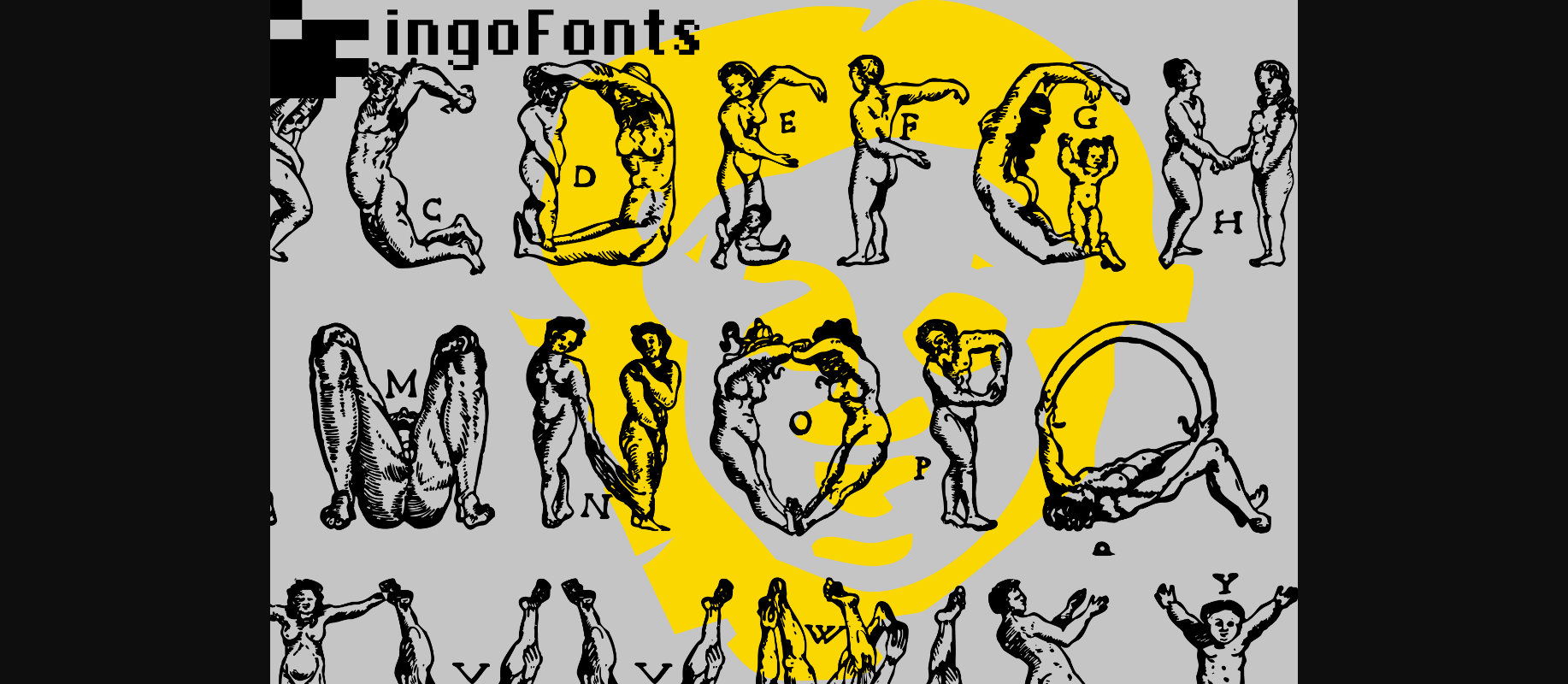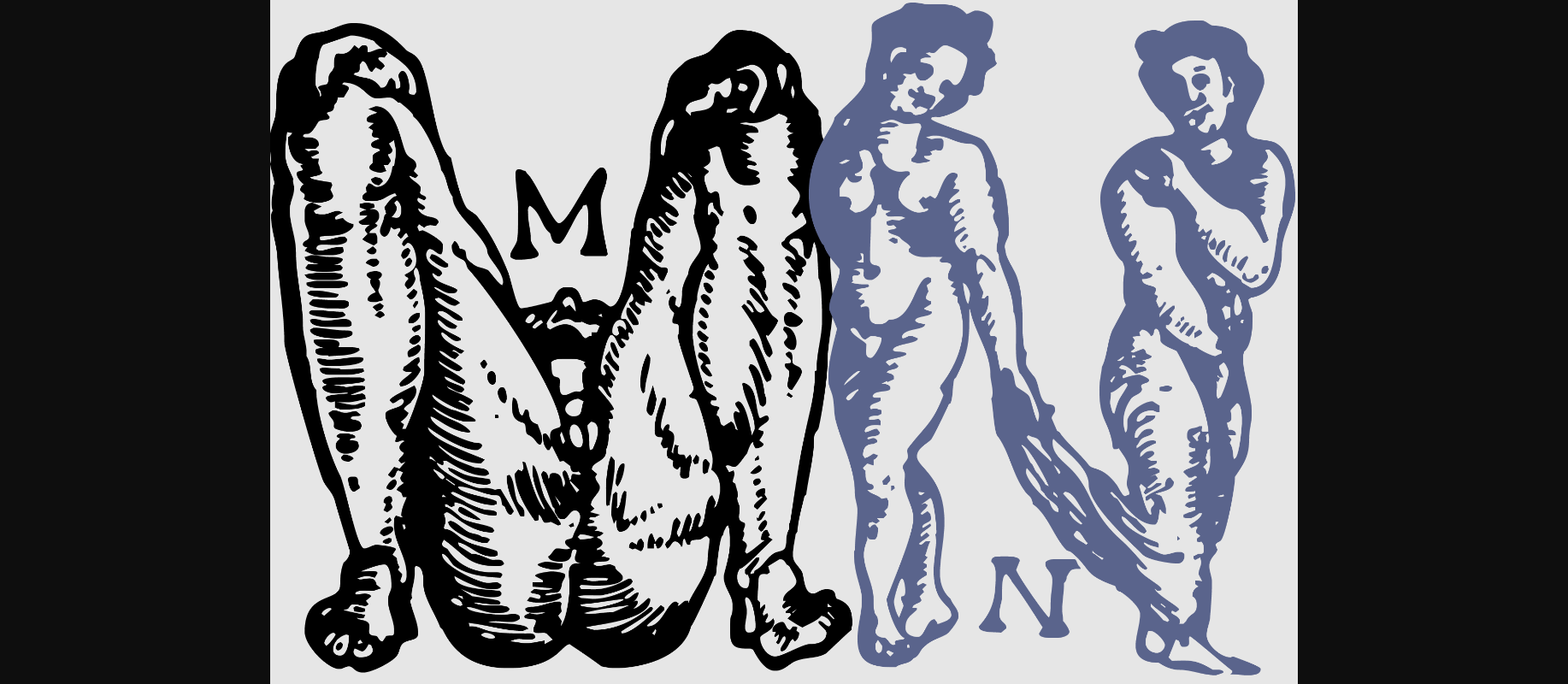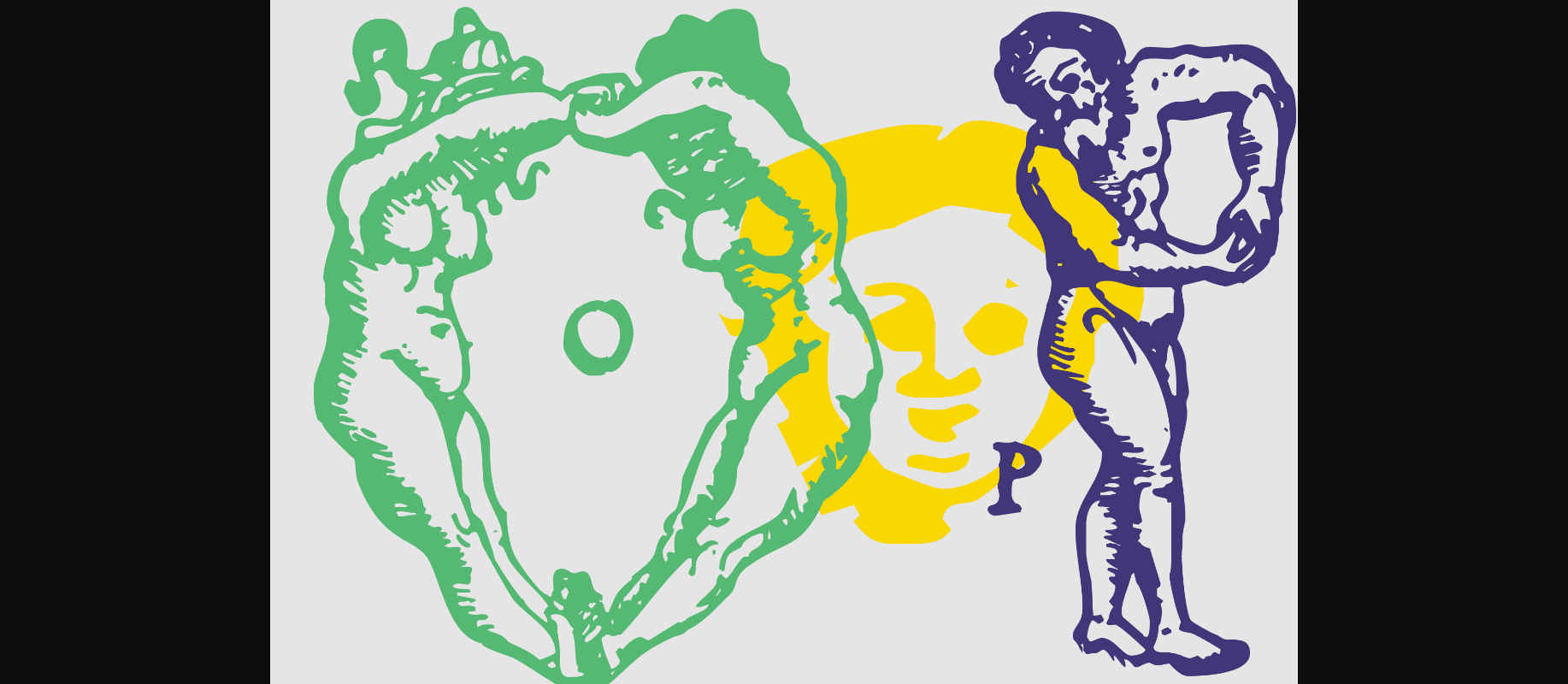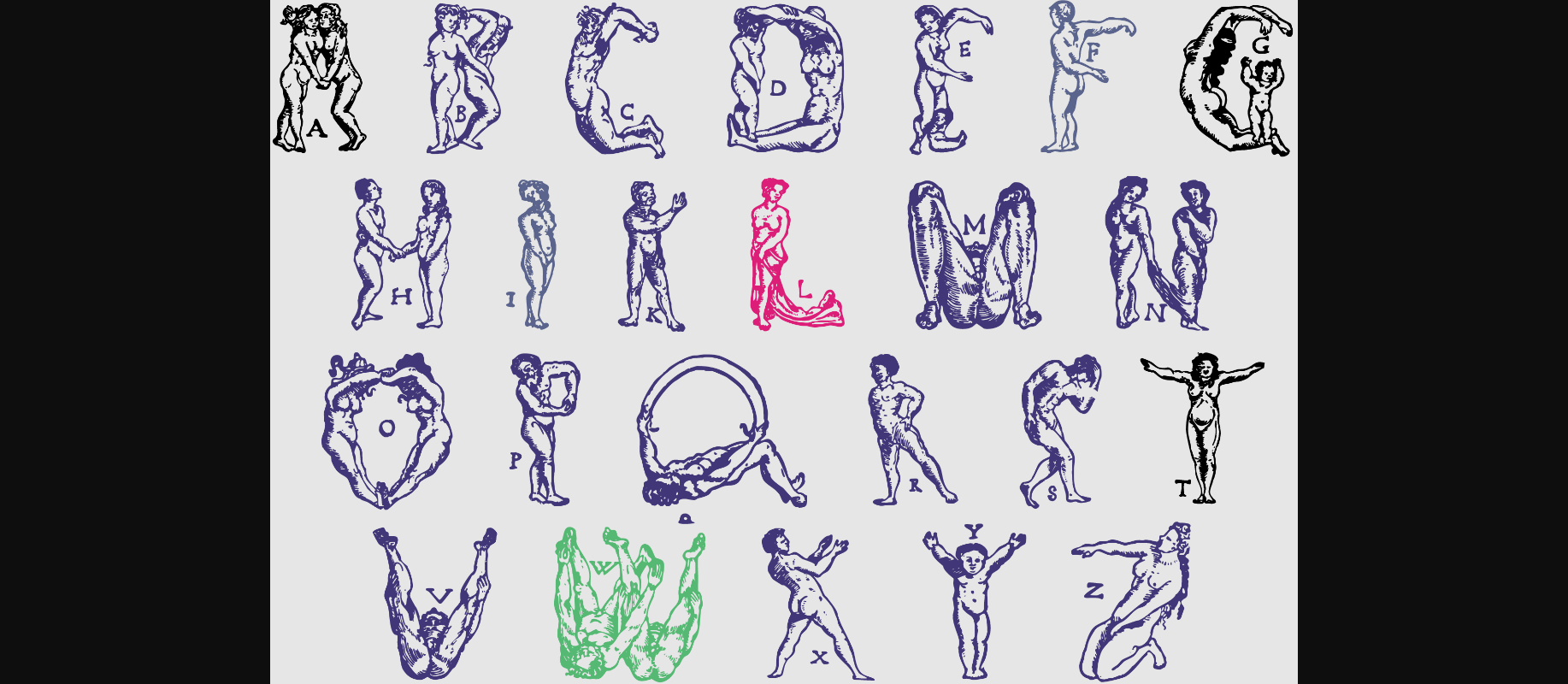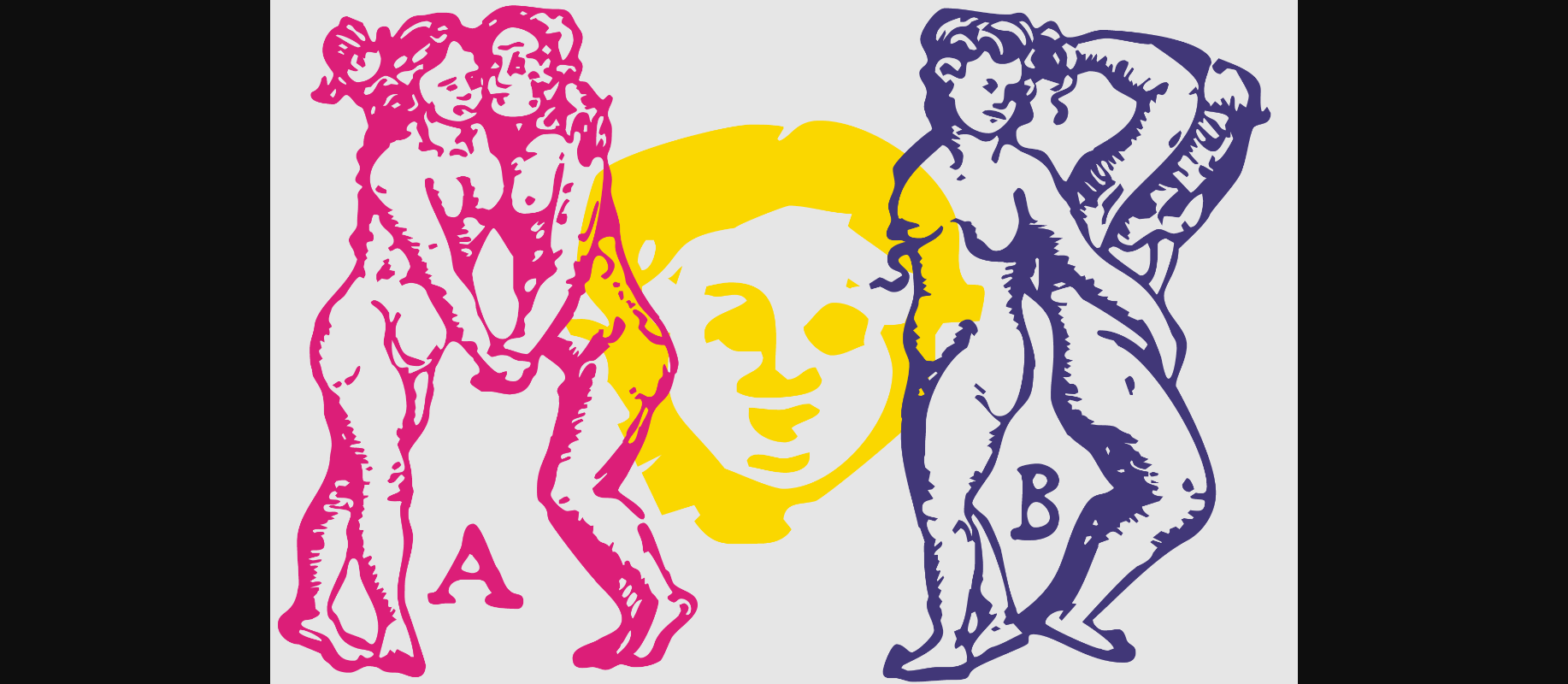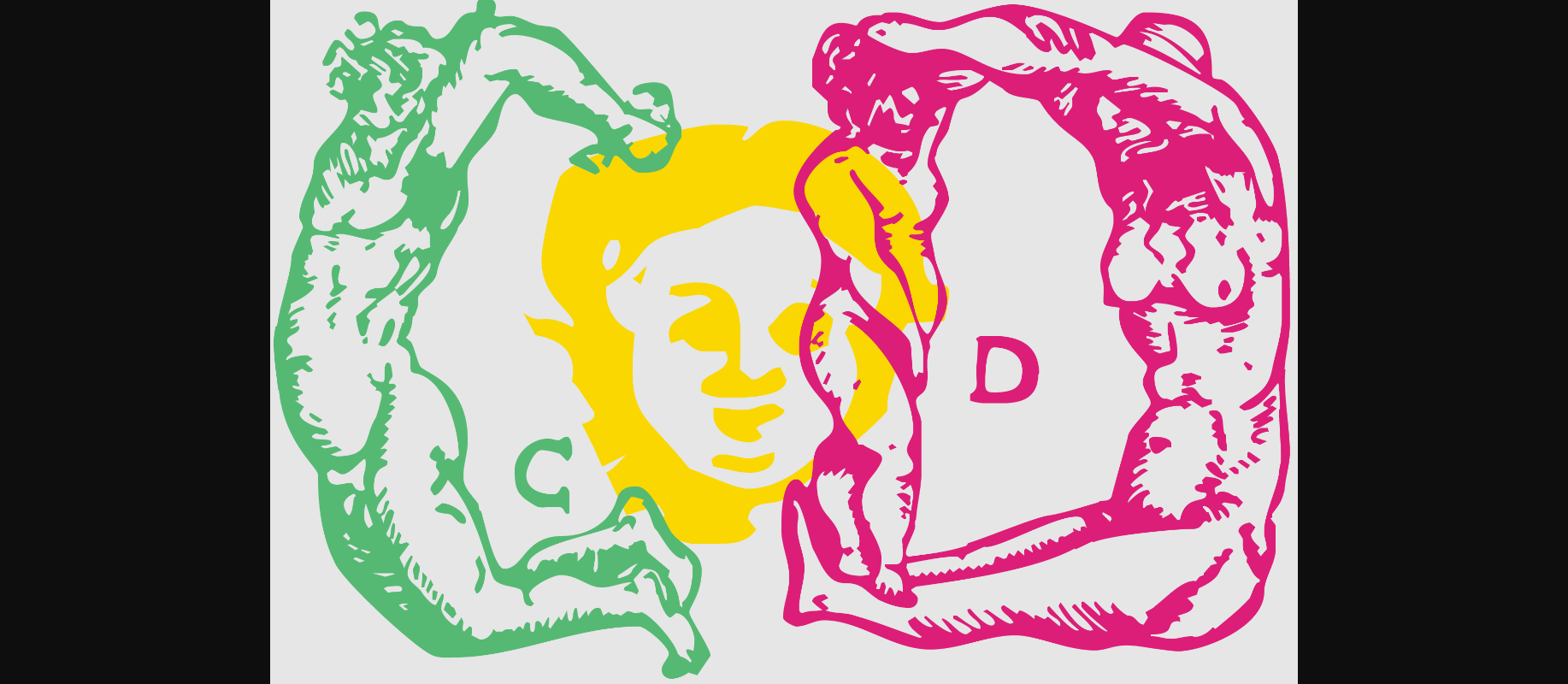
Menschenalphabet Font
About Menschenalphabet Font
Menschenalphabet is a a typical renaissance figurative alphabet font! It’s absolutely unique, and will turn any design project into an eye catcher.